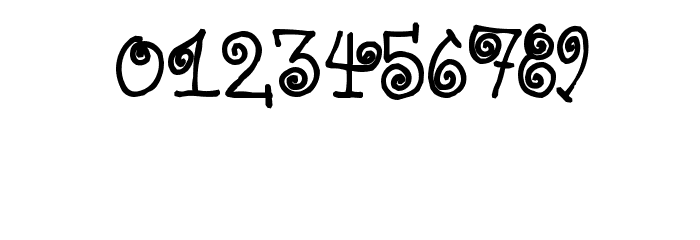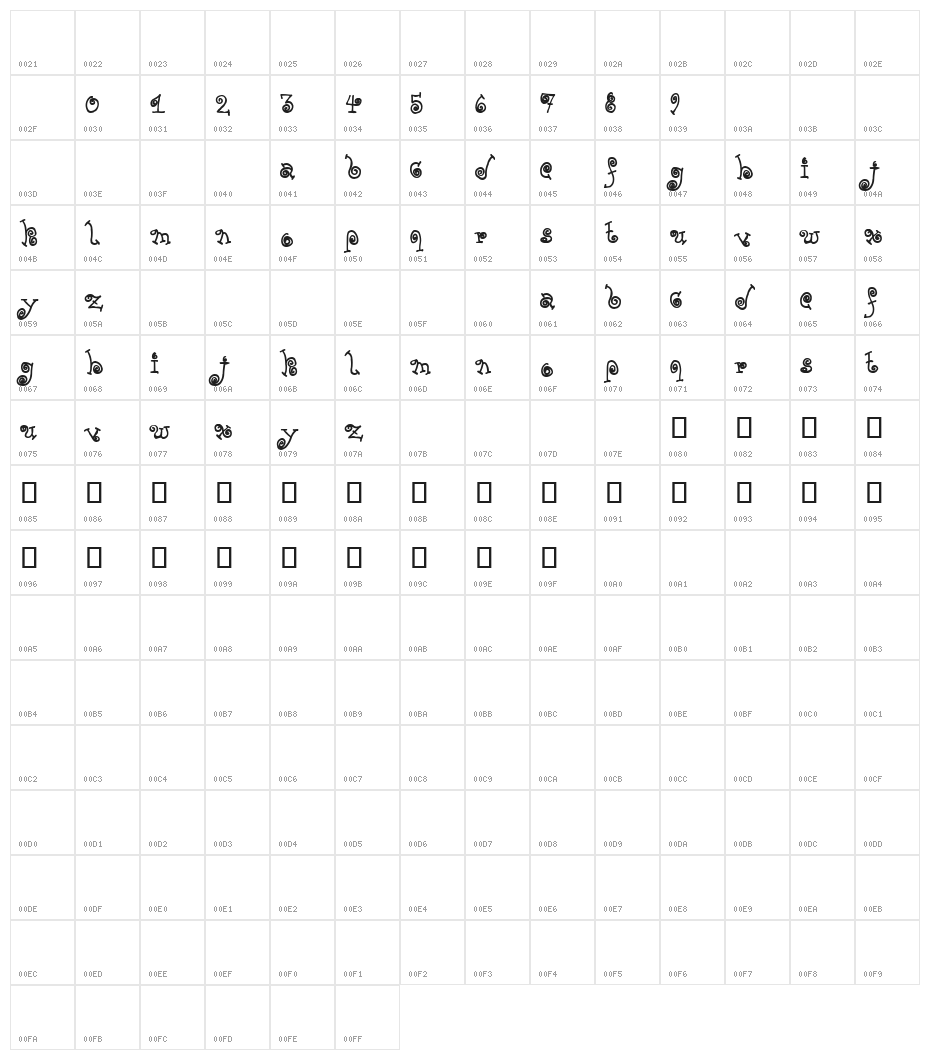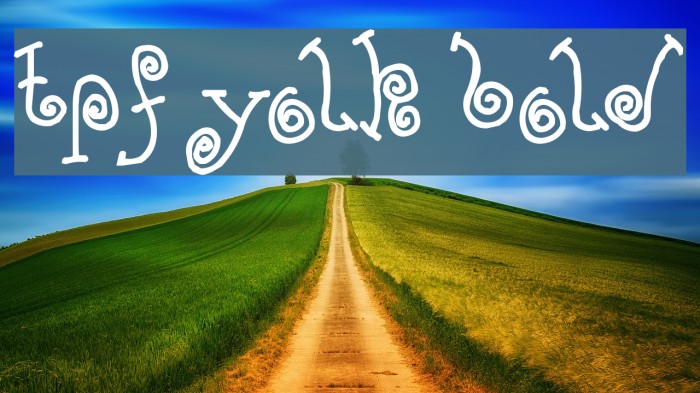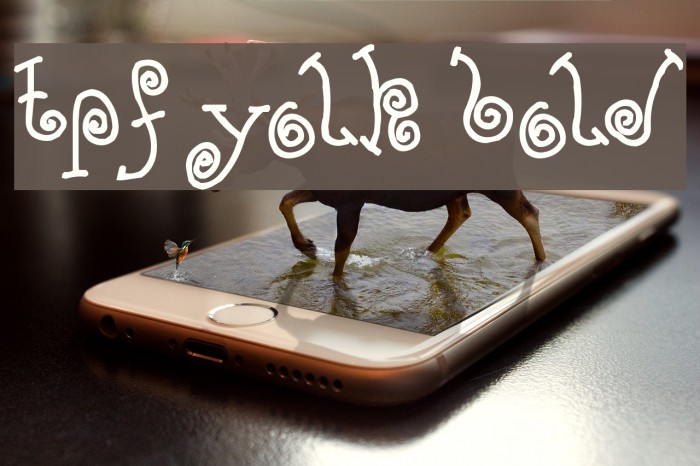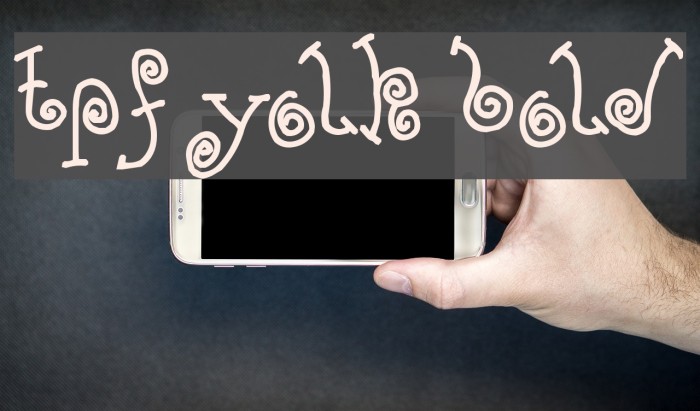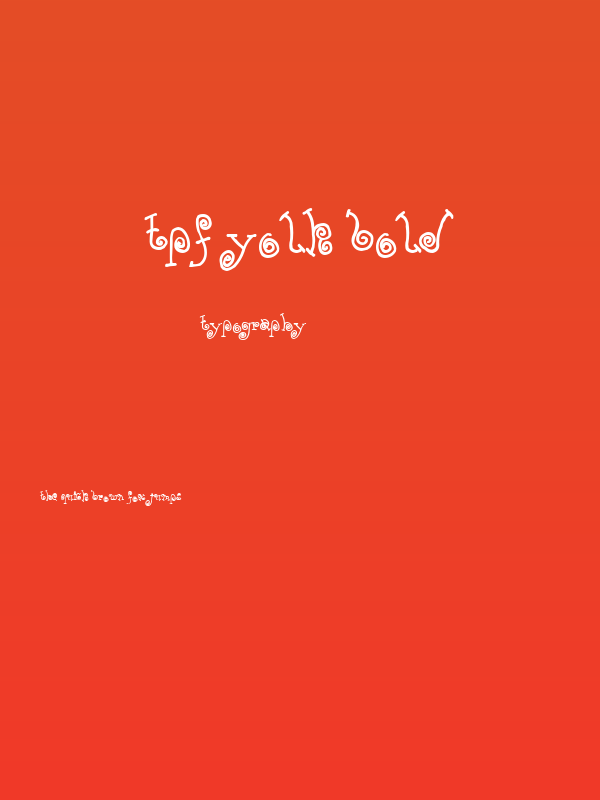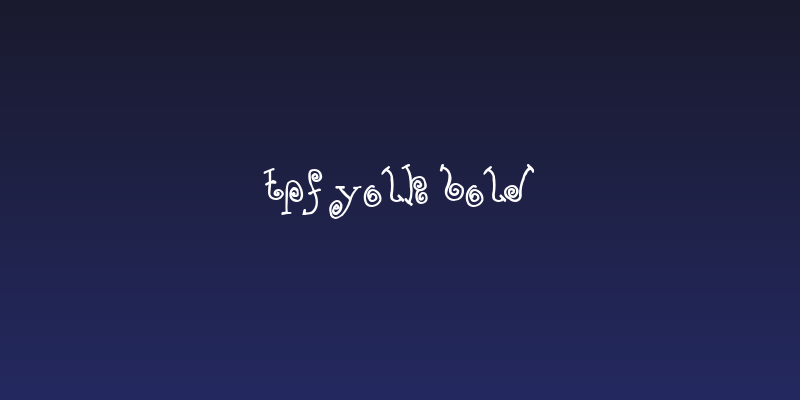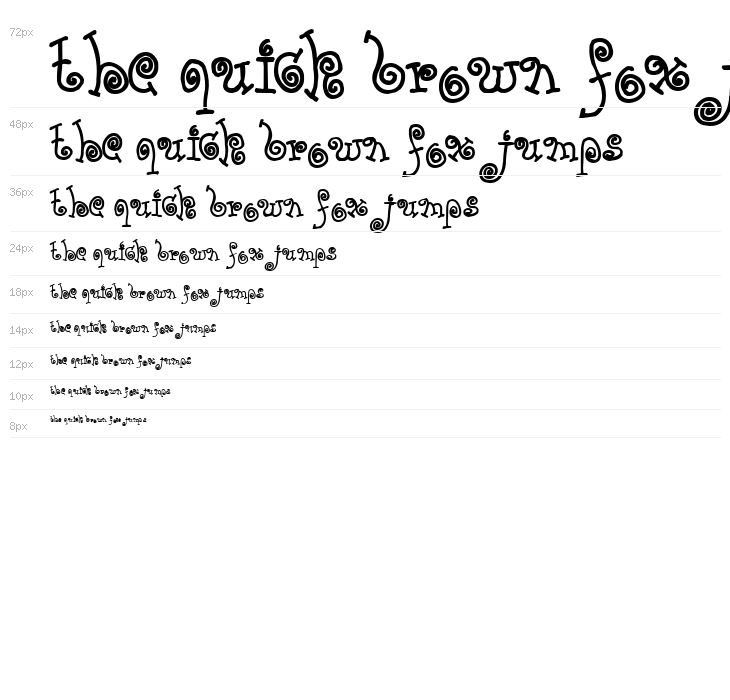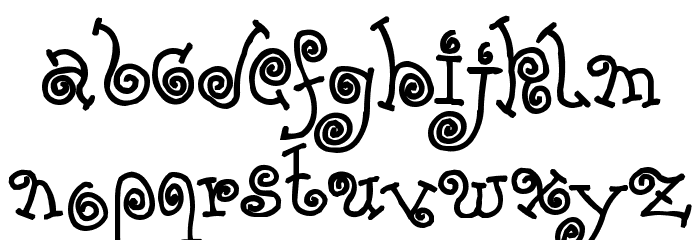
TPF Yolk Bold Font
TPF Yolk Bold Description
This font features a whimsical and playful design, characterized by its curly and spiral-like elements in each letter. The strokes are bold and prominent, giving it a strong visual presence. The font maintains a consistent style across both uppercase and lowercase letters, as well as numbers, with each character exhibiting unique, artistic flourishes. The overall appearance is decorative and eye-catching, making it suitable for creative and informal applications. The special characters are equally stylized, maintaining the font's distinctive aesthetic.
| Proposed Projects | Ideal for children's book covers, playful branding, party invitations, and creative posters. |